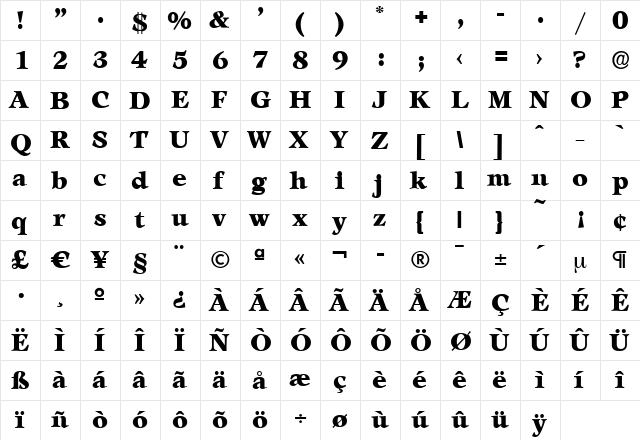
JakeBecker-Black Regular Font Preview
JakeBecker-Black Regular
JakeBecker-Black Regular Font Details
Design Context for JakeBecker-Black Typeface
JakeBecker-Black offers clean, dependable letterforms without strong stylistic allegiance, making it a practical choice for designers who need flexibility.